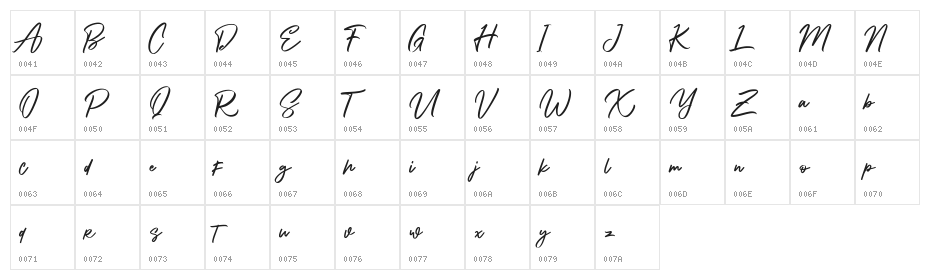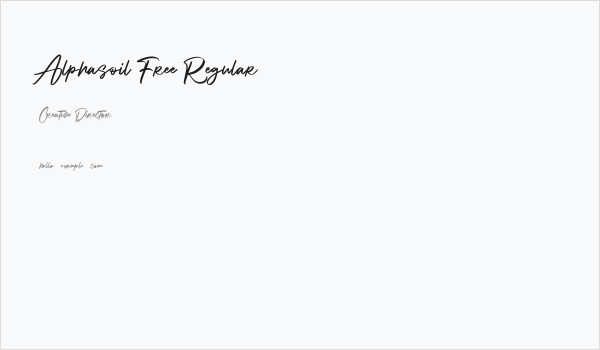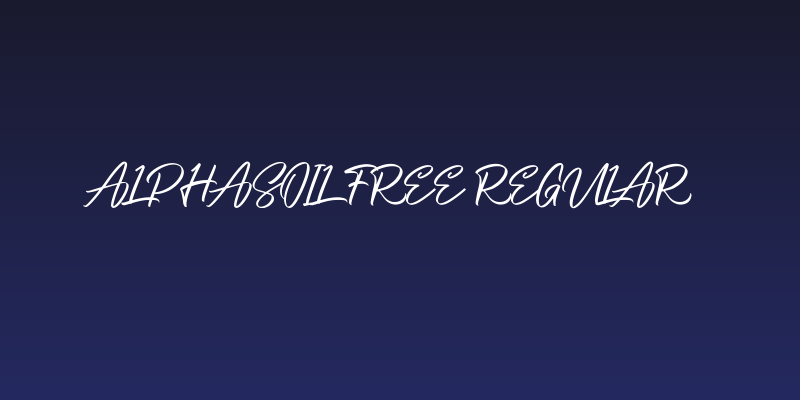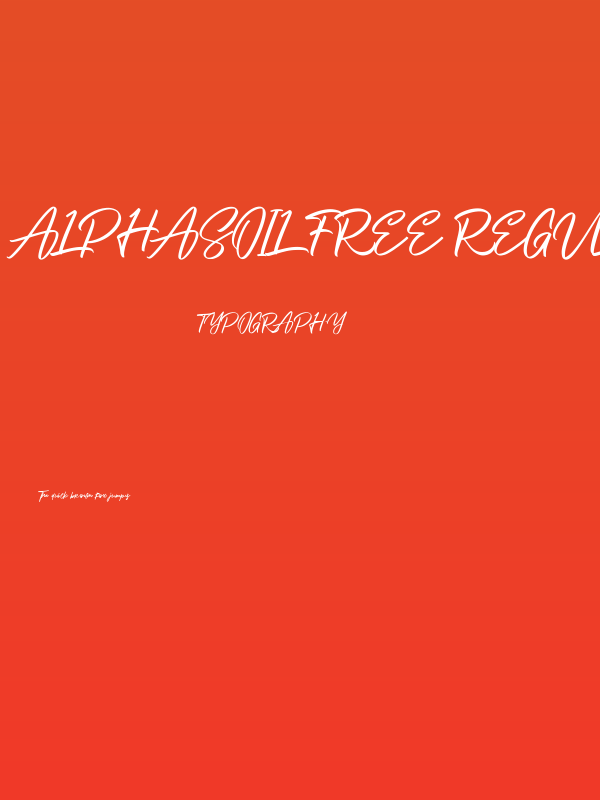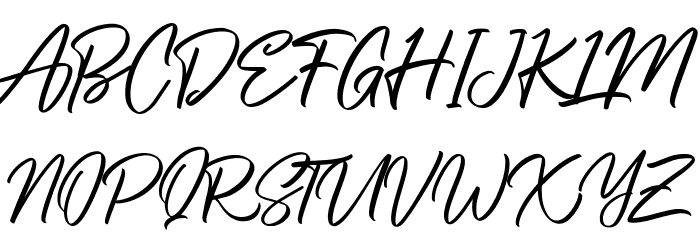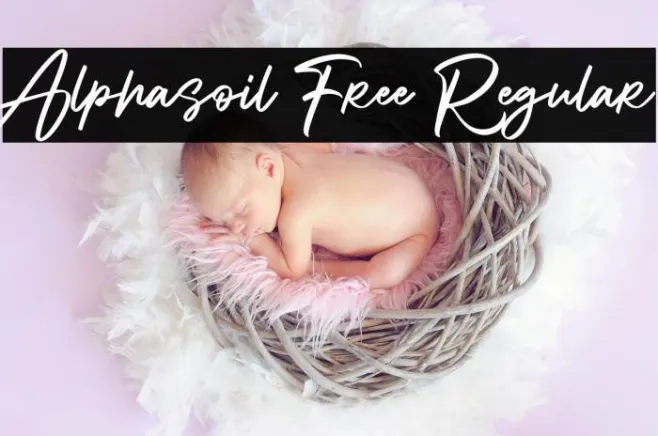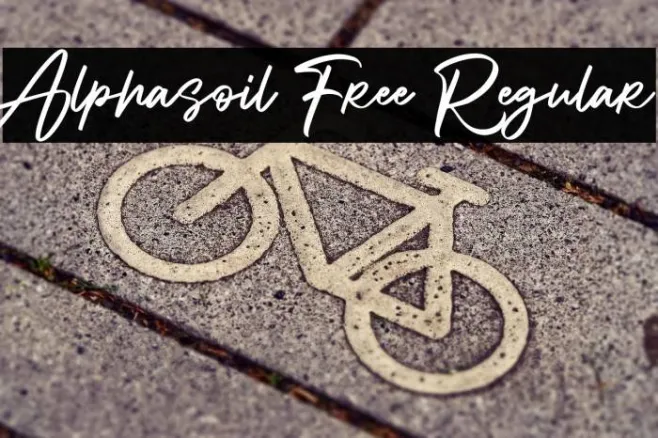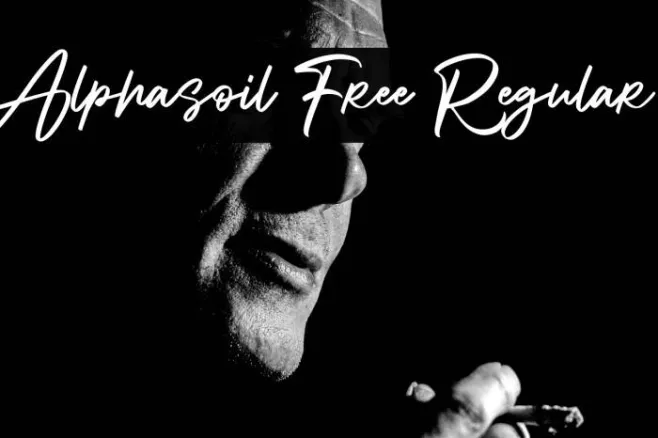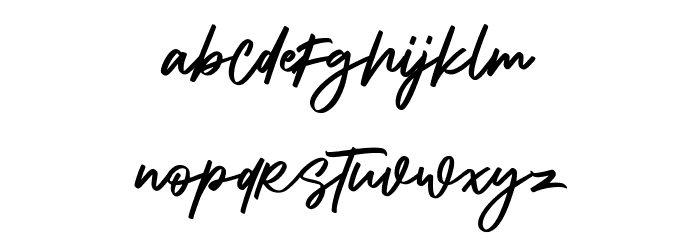
Alphasoil Free Regular Font
Alphasoil Free Regular Description
This font exudes a dynamic and expressive style, characterized by its flowing, cursive script that mimics the fluidity of natural handwriting. The letters are elegantly connected, creating a sense of movement and rhythm. The strokes are smooth and slightly varied in thickness, adding a touch of sophistication and personality. The uppercase letters are bold and prominent, while the lowercase letters maintain a consistent flow, enhancing readability. This font is perfect for projects that require a personal touch, such as invitations, greeting cards, or branding materials that aim to convey elegance and creativity.